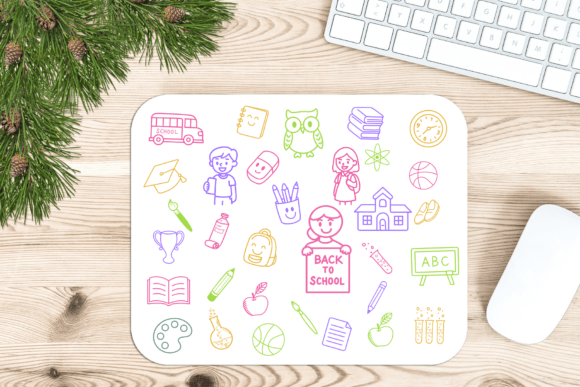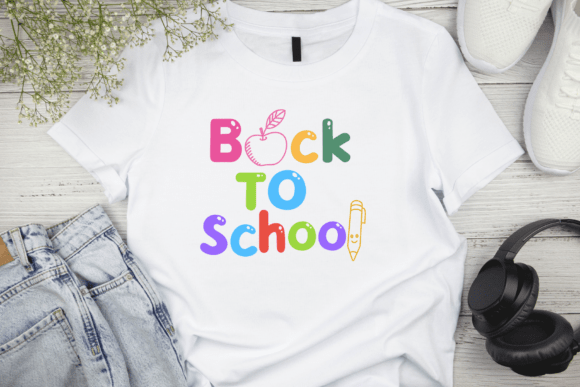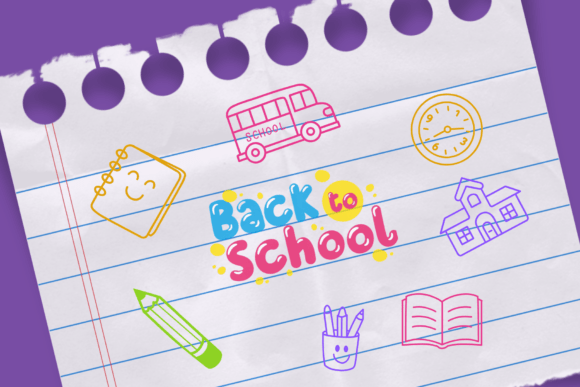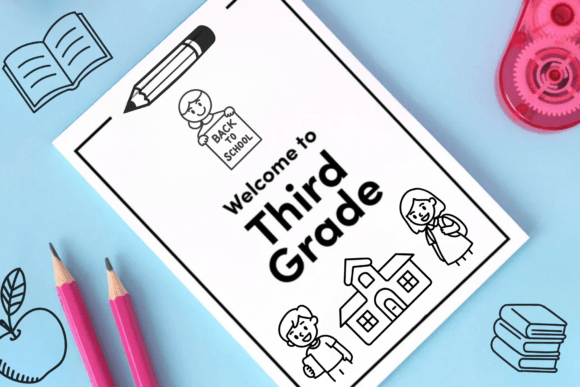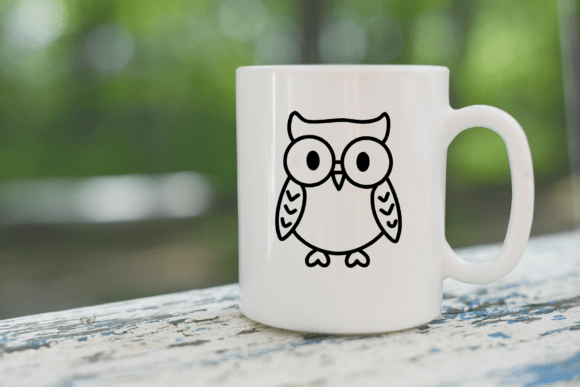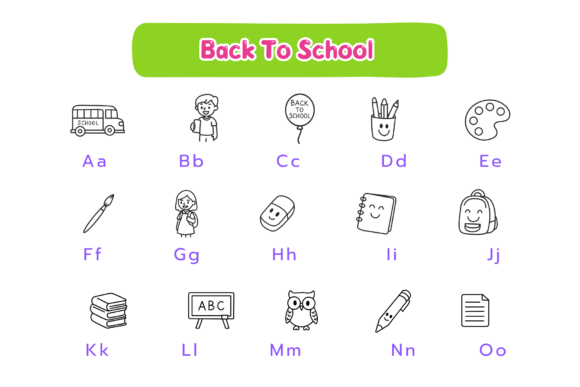
Back to School Font: Add a Playful Touch to Your Classroom Materials with Back To School Doodle Font
As the new school year approaches, designers, teachers, and crafters are on the lookout for creative and engaging ways to make their classroom materials, posters, worksheets, and invitations stand out. One of the most effective ways to add a playful touch to your back-to-school designs is by using a unique and eye-catching font. This is where the Back To School Doodle Font comes in – a fun and playful hand-drawn typeface inspired by school doodles that is perfect for bringing joy and creativity to every back-to-school theme.
What is Back To School Doodle Font?
Back To School Doodle Font is a hand-drawn typeface that captures the whimsical and carefree spirit of school doodles. This font is designed to resemble the playful illustrations and scribbles often found in notebooks, textbooks, and classroom materials. With its cute illustrations and cheerful vibe, it’s the perfect addition to any back-to-school design project.
Key Features of Back To School Doodle Font
- Hand-drawn design: Each letter and character is carefully hand-drawn to give the font a unique and personal touch.
- Playful illustrations: The font features cute illustrations and doodles that add a fun and whimsical touch to your designs.
- Cheerful vibe: The font’s playful and cheerful vibe is perfect for creating engaging and uplifting back-to-school designs.
- Versatile: Back To School Doodle Font can be used for a wide range of design projects, including classroom materials, posters, worksheets, invitations, kids’ projects, and more.
Uses for Back To School Doodle Font
Back To School Doodle Font is an incredibly versatile font that can be used for a wide range of design projects. Here are some ideas to get you started:
- Classroom materials: Use the font to create engaging and interactive classroom materials, such as worksheets, activity sheets, and educational posters.
- Posters and flyers: Create eye-catching posters and flyers for back-to-school events, parent-teacher conferences, and school fairs.
- Invitations: Design playful and fun invitations for back-to-school events, parent-teacher conferences, and school parties.
- Kids’ projects: Use the font to create fun and engaging projects for kids, such as storybooks, activity books, and coloring books.
- Creative designs: Add a playful touch to your creative designs, such as greeting cards, gift tags, and social media graphics.
Why Choose Back To School Doodle Font?
With so many fonts available, why choose Back To School Doodle Font? Here are just a few reasons why this font stands out:
- Unique and playful design: The font’s hand-drawn design and playful illustrations make it a one-of-a-kind addition to any design project.
- Easy to read: Despite its playful design, the font is easy to read and understand, making it perfect for classroom materials and other designs where clarity is important.
- Customizable: The font can be customized to fit your specific design needs, allowing you to adjust the size, color, and style to suit your project.
Tips for Using Back To School Doodle Font
Here are a few tips for getting the most out of Back To School Doodle Font:
- Use it sparingly: While the font is playful and fun, it can be overwhelming if used too much. Use it sparingly to add a touch of whimsy to your designs.
- Pair it with other fonts: Pair the font with other fonts to create a unique and visually appealing design.
- Experiment with colors: The font looks great in a variety of colors, so don’t be afraid to experiment and find the perfect hue for your design.
In conclusion, Back To School Doodle Font is a fun and playful hand-drawn typeface that is perfect for adding a playful touch to your back-to-school designs. With its cute illustrations and cheerful vibe, it’s the perfect addition to any classroom material, poster, worksheet, invitation, or kids’ project. So why not give it a try and see how it can bring joy and creativity to your designs?